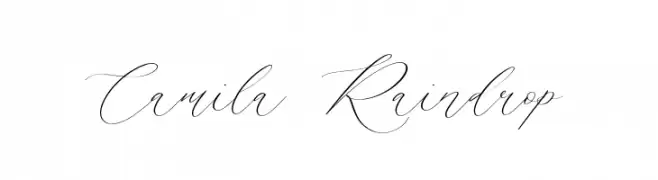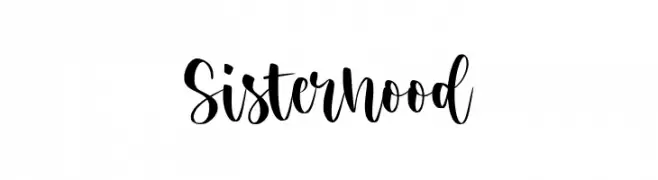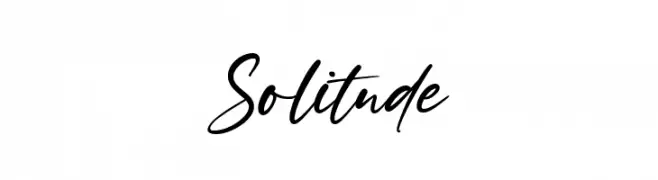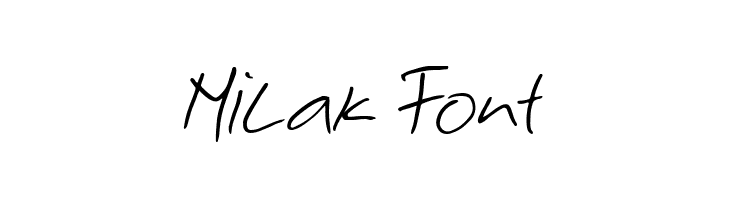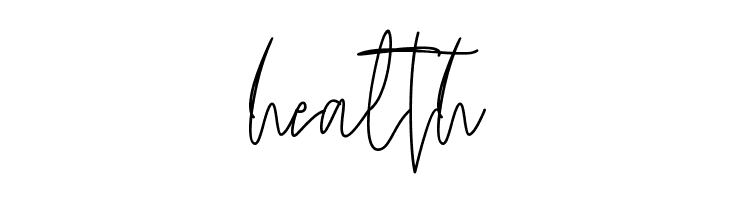
A lively, expressive handwritten font with dynamic strokes and playful characters.
A graceful, cursive script font with elegant, flowing lines and high contrast.
A bold, playful script font with flowing, energetic characters.
A graceful script font with flowing, cursive letters and elegant swirls.
A playful, casual handwritten font with expressive, flowing letterforms.
A bold, playful script font with a hand-drawn, whimsical style.
A lively and elegant script font with fluid, connected letterforms and expressive strokes.
A modern, elegant script font with flowing, cursive letters and a sophisticated style.
A bold, playful script font with flowing, rounded letterforms.
A dynamic, cursive script font with fluid, expressive strokes.